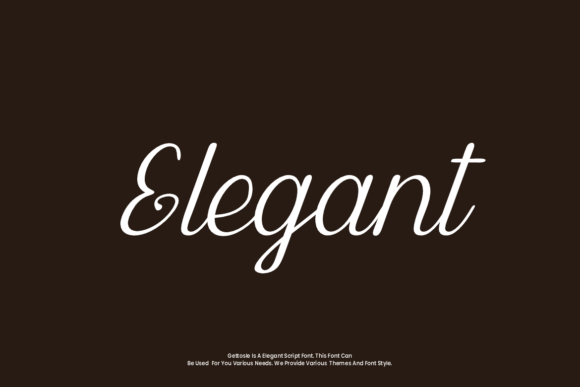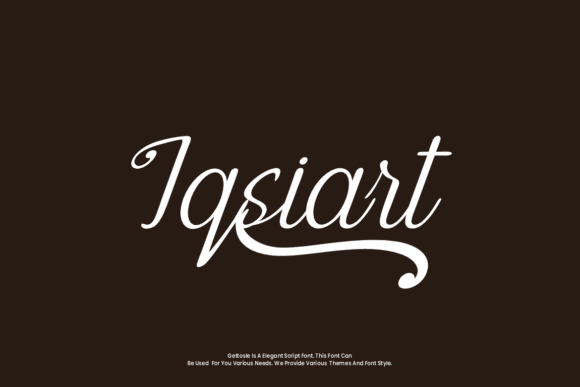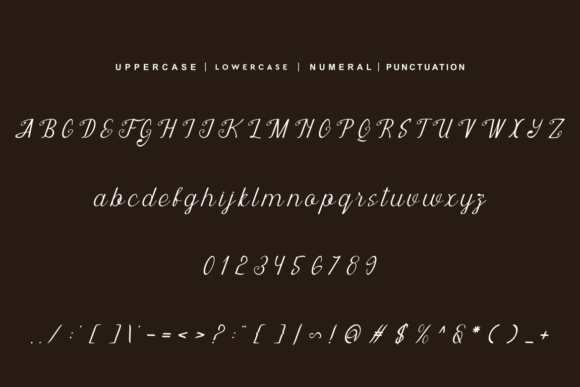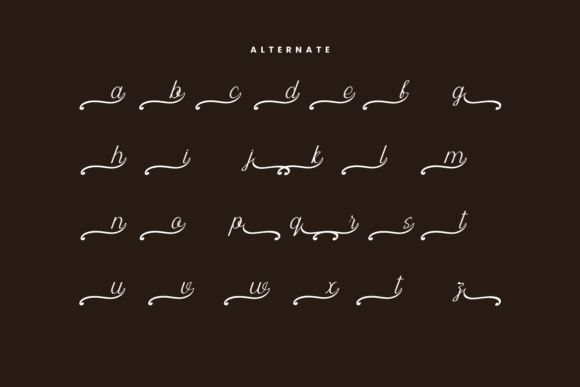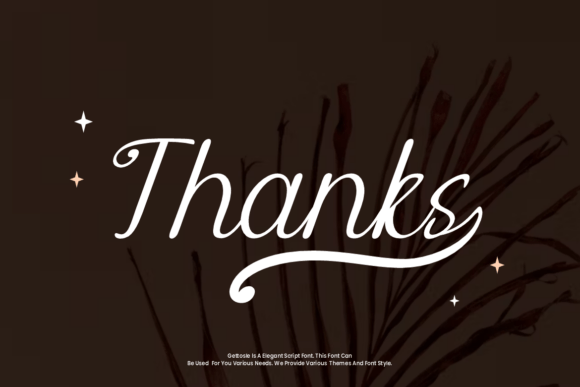
Introducing Gettosle Font: Elevate Your Designs with Elegant Sophistication
In the world of typography, few fonts capture the essence of romance and elegance as effortlessly as Gettosle script font. This stunning typeface is designed to bring a touch of fluid elegance to any design, making it perfect for creatives looking to infuse their projects with a sense of sophistication and charm. Gettosle script font is characterized by its seamless, continuous strokes that connect each letter, creating a natural, handwritten flow that exudes warmth and personality.
The Distinctive Features of Gettosle Font
So, what sets Gettosle font apart from other script fonts? The answer lies in its defining elements. The font features thick and thin variations within each stroke, adding a subtle, sophisticated texture that gives it depth and visual interest. The sweeping swashes on the descenders are another notable feature, lending a sense of grand movement and style to the overall design. These distinctive characteristics come together to create a font that is not only elegant but also remarkably versatile.
Perfect for a Range of Design Applications
Gettosle font’s expressive tone makes it an ideal choice for a wide range of design applications. Whether you’re creating wedding invitations, upscale brand logos, romantic greeting cards, or social media graphics, this font is sure to add a touch of beautiful, timeless charm to your projects. Its elegant sophistication also makes it well-suited for use in fashion magazines, luxury product packaging, and high-end advertising campaigns.
PUA-Encoded for Effortless Access
One of the key benefits of Gettosle font is its PUA (Private Use Area) encoding. This means that designers can access all glyphs, swashes, and alternate characters with ease, allowing for greater flexibility and creativity in their designs. With Gettosle font, you can effortlessly incorporate intricate details and flourishes into your work, taking your designs to the next level.
Why Designers and Crafters Love Gettosle Font
So, why have designers and crafters fallen in love with Gettosle font? The answer lies in its unique combination of elegance, versatility, and ease of use. Here are just a few reasons why Gettosle font has become a go-to choice for creatives:
- Elegant Sophistication: Gettosle font adds a touch of refined elegance to any design, making it perfect for projects that require a sense of luxury and sophistication.
- Versatility: With its fluid, handwritten flow and range of glyphs and swashes, Gettosle font can be used in a wide range of design applications, from wedding invitations to social media graphics.
- Easy to Use: Gettosle font is PUA-encoded, making it easy to access all glyphs, swashes, and alternate characters.
- Timeless Charm: Gettosle font’s classic, elegant design ensures that it will remain a timeless choice for years to come, rather than a fleeting trend.
Tips for Getting the Most Out of Gettosle Font
To get the most out of Gettosle font, here are a few tips to keep in mind:
- Experiment with Swashes: Gettosle font’s sweeping swashes are a key feature, so don’t be afraid to experiment with different swash combinations to add drama and flair to your designs.
- Play with Font Sizes: Gettosle font looks stunning in a range of font sizes, from large headings to smaller body text. Experiment with different sizes to create visual interest and hierarchy in your designs.
- Pair with Complementary Fonts: Gettosle font pairs beautifully with a range of complementary fonts. Try pairing it with a clean sans-serif font for a striking contrast.
Gettosle script font is a true gem in the world of typography. Its elegant sophistication, versatility, and ease of use make it a must-have for designers and crafters looking to elevate their designs. Whether you’re creating wedding invitations, upscale brand logos, or social media graphics, Gettosle font is sure to add a touch of beautiful, timeless charm to your projects. So why wait? Discover the beauty of Gettosle font for yourself and take your designs to the next level.